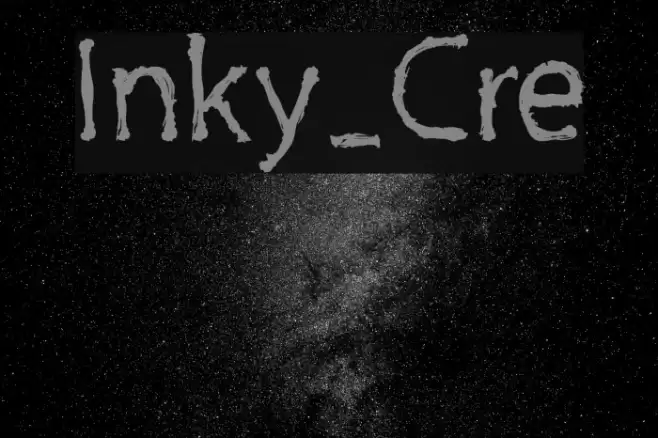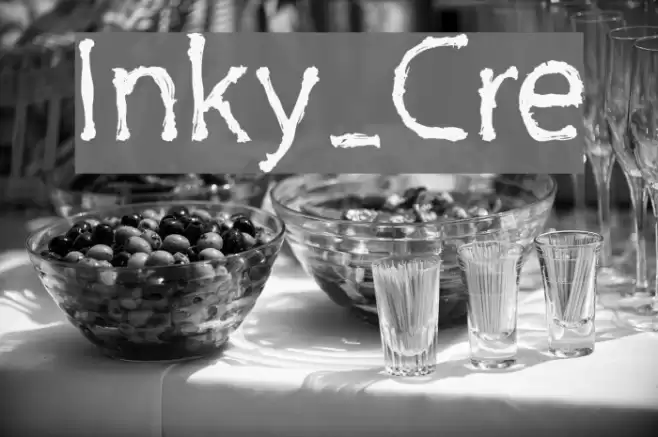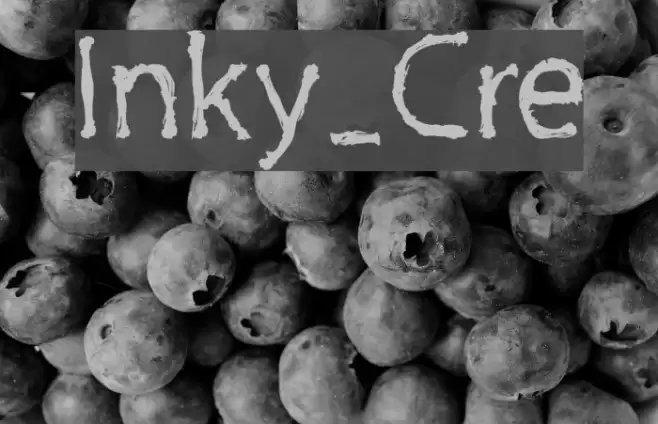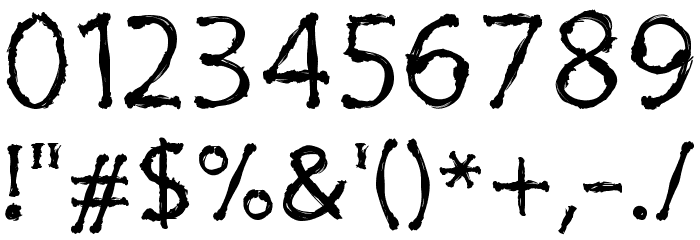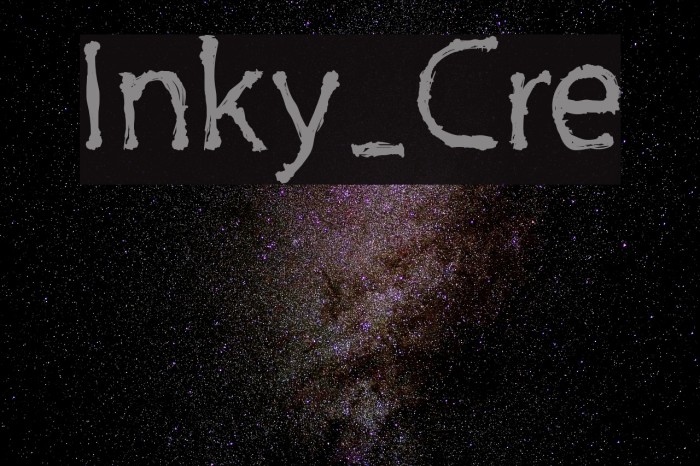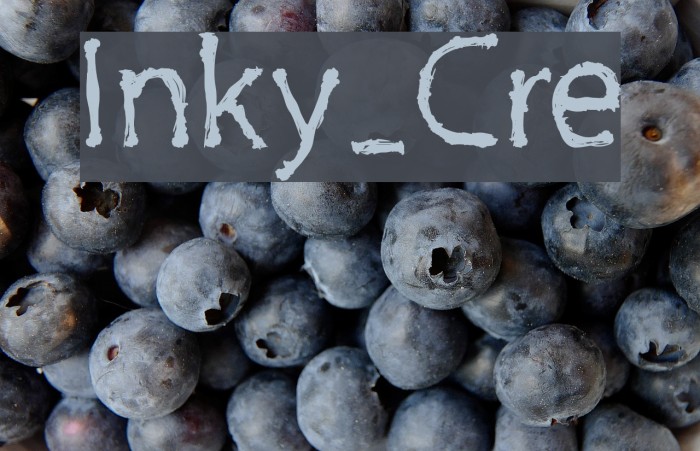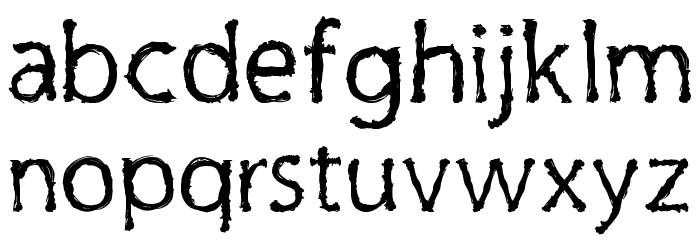
Inky_Cre Font
Inky_Cre Description
This font exhibits a unique, hand-drawn style with an ink-like texture, giving it a raw and artistic appearance. The characters are irregular and slightly rough around the edges, creating a sense of authenticity and creativity. The uppercase and lowercase letters maintain a consistent style, with a playful yet legible design. Numbers and special characters follow the same aesthetic, ensuring uniformity across all elements. This font's distinctive look makes it stand out, perfect for projects that require a touch of individuality and artistic flair.
A hand-drawn, ink-textured font with a creative and artistic style from Uncategorized fonts.
- Proposed Projects: Ideal for art projects, creative branding, posters, and invitations that seek a unique and personal touch.
- Overall Style: Artistic
- Use Case: Logos, Posters, Invitations